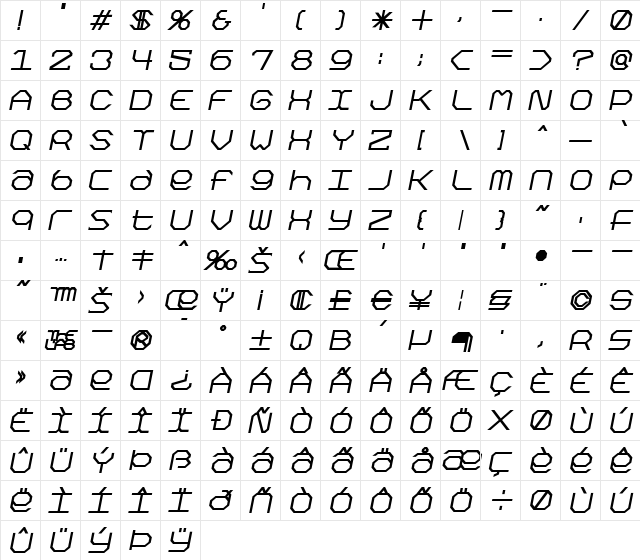
Kimono Kong Italic
| Designer | Keya Kirkpatrick & Apostrophic Laboratories |
Design Context for Kimono Kong Typeface
Kimono Kong brings the precise, column-aligned rhythm of monospaced typography to designs that value technical clarity and systematic order. The dynamic lean of this cut emphasises speed and emphasis in any layout.
A natural fit for code editors, technical documentation, developer-focused branding, and terminal-inspired UI.
Pro Tip: Pair Kimono Kong with a proportional sans for UI contexts where code-style labels and regular body copy need to coexist.